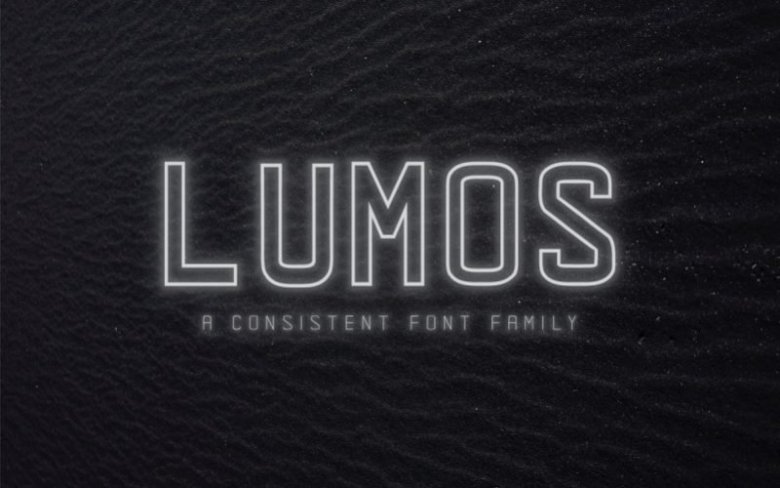
Lumos Sans Font
Lumos is a modern and consistent sans serif this font family comes with consistent edges, supporting a smooth and clean look. Fonts include uppercase alphabet, numbers, and common symbols, and multilingual support